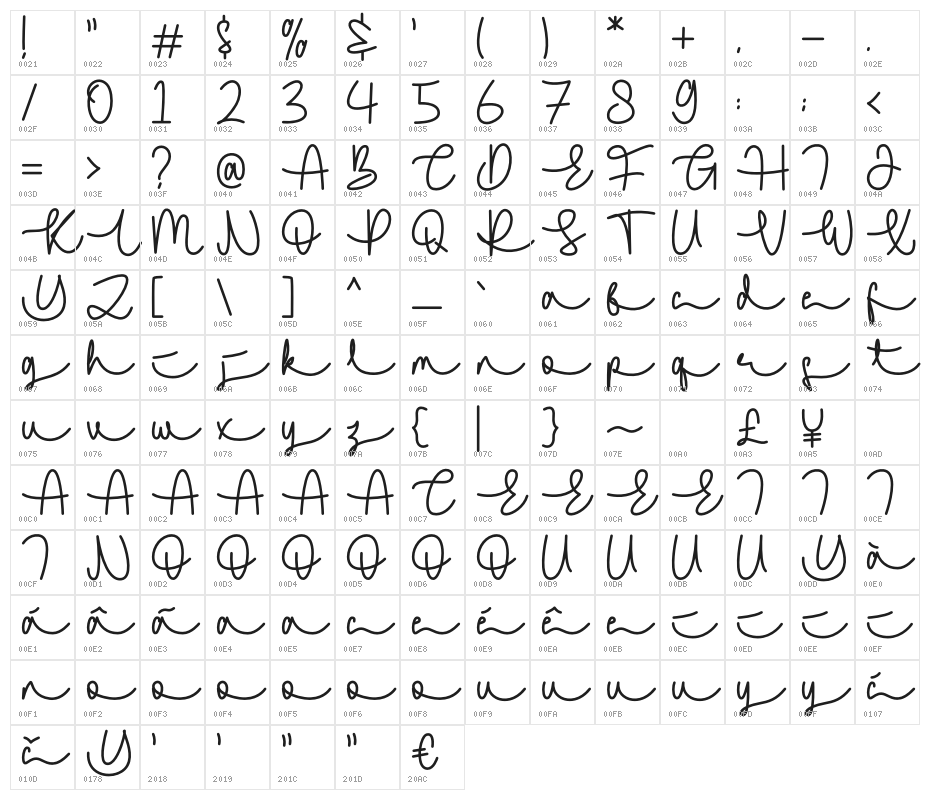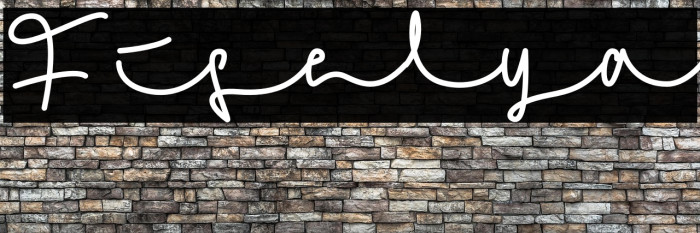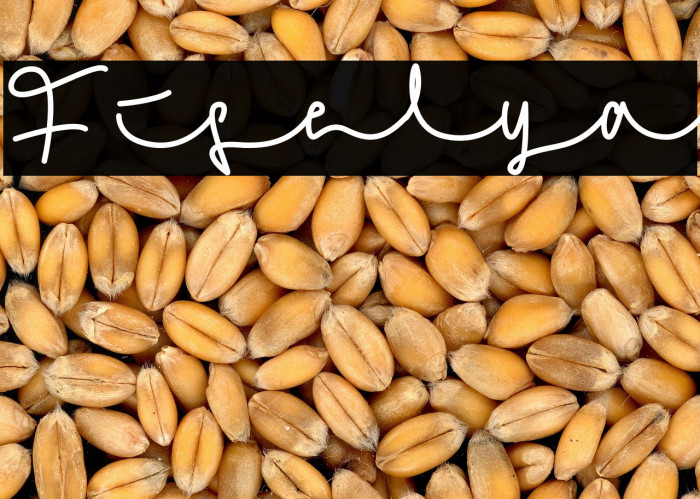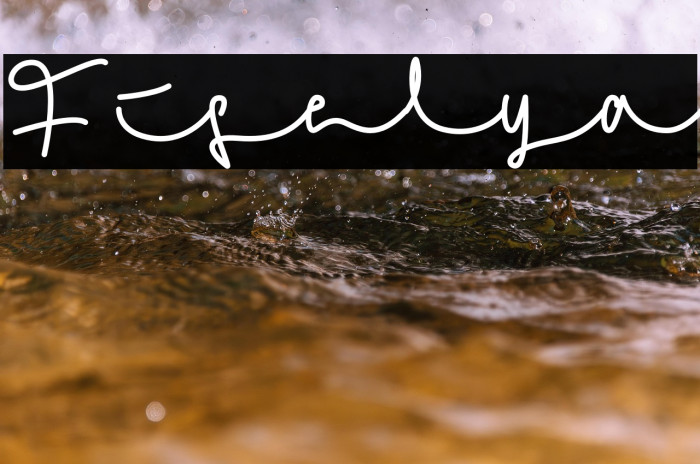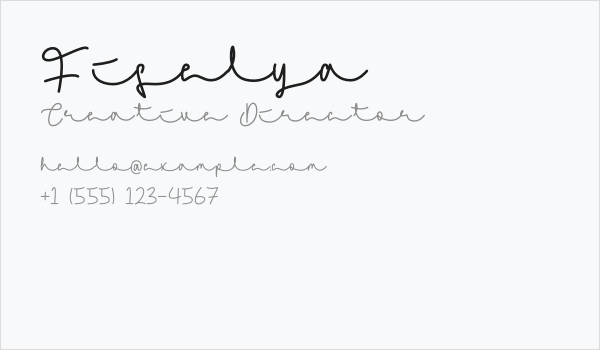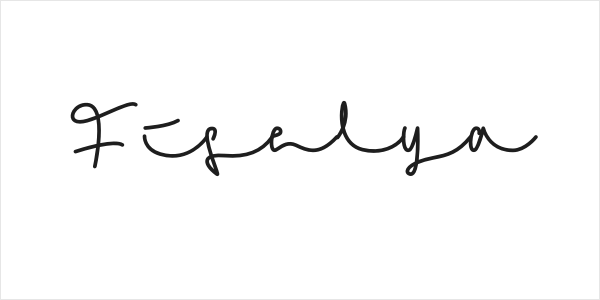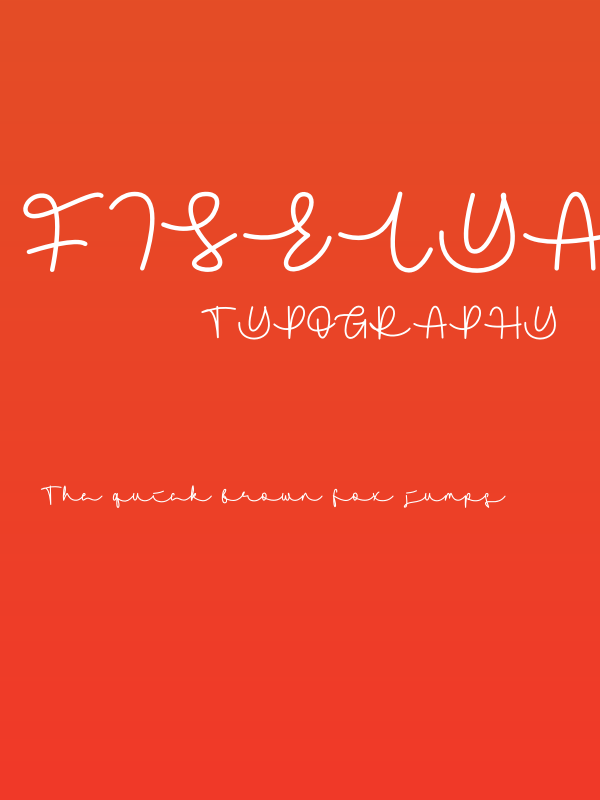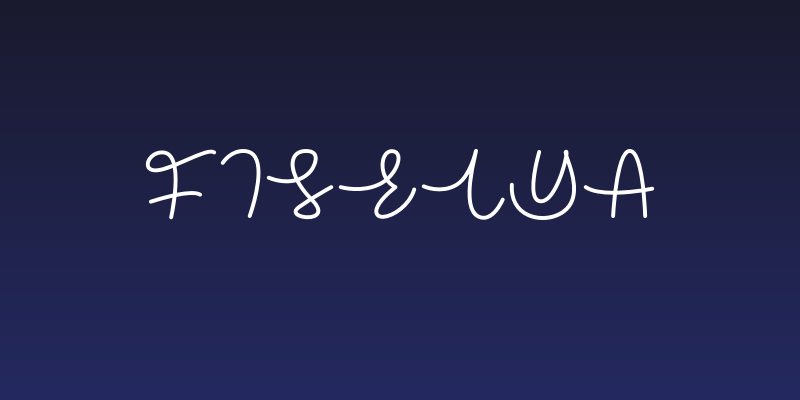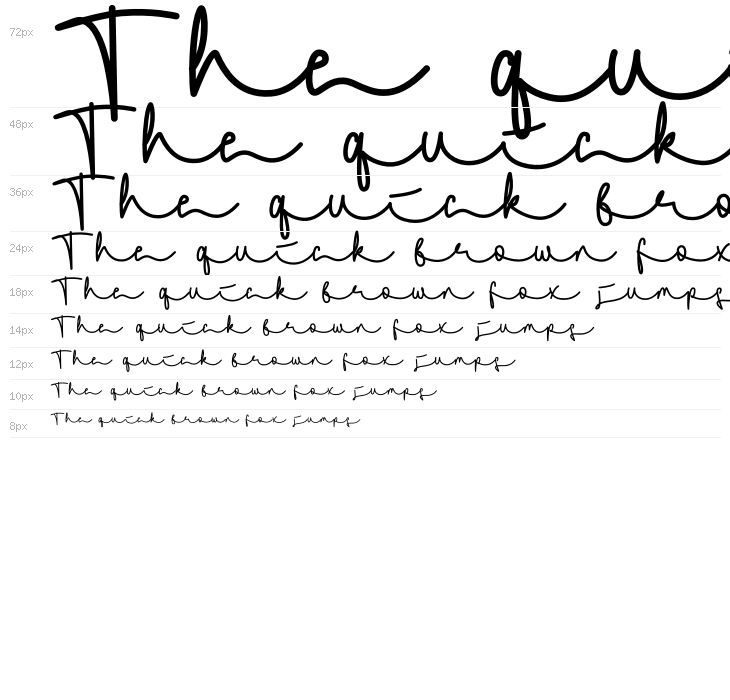
Fiselya Font
| Общий стиль | Casual, Playful |
| Область применения | Headlines, Logos, Invitations |
| Рекомендуемые проекты | Ideal for invitations, greeting cards, personal branding, and any project needing a friendly, approachable feel. |